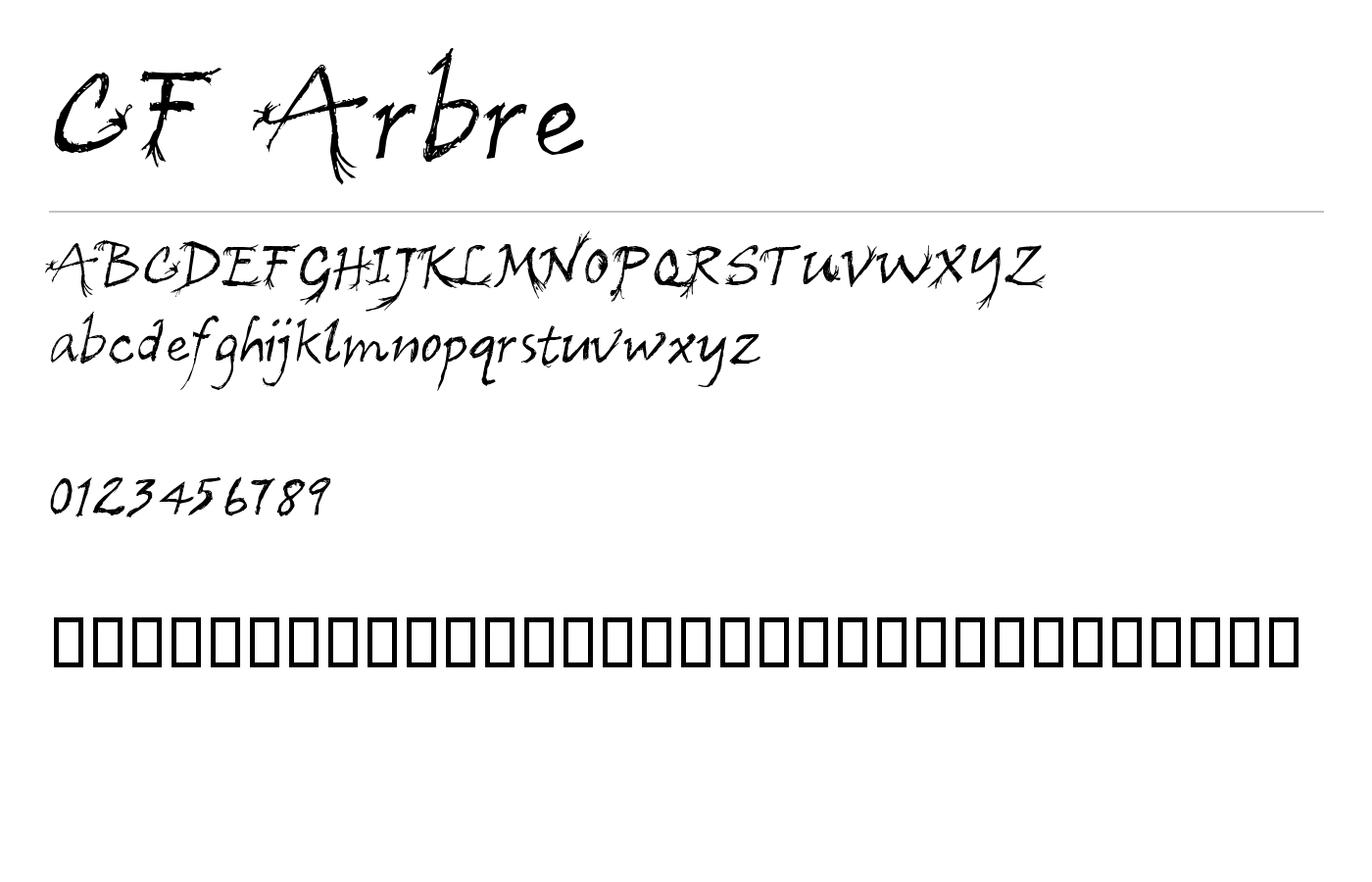
CF Arbre is a unique handwritten script font with a rough, organic texture that resembles tangled branches or roots. Its irregular strokes and delicate, uneven letterforms give it a natural, expressive feel, making it ideal for designs that want to evoke a mysterious, artistic, or rustic atmosphere. This font works well for creative projects, branding with a nature-inspired theme, or any context where a personal, handcrafted touch is desired.
CF Arbre Font
About CF Arbre Font
| Designer | Steve Cloutier |